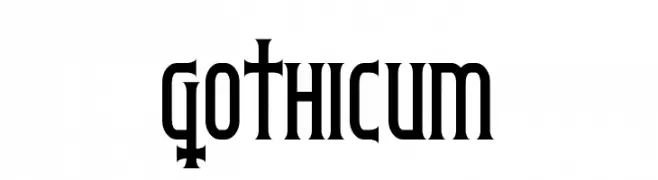
A bold, gothic-inspired font with sharp, angular edges and a dramatic style.
A Gothic-inspired font with sharp, angular lines and intricate detailing.